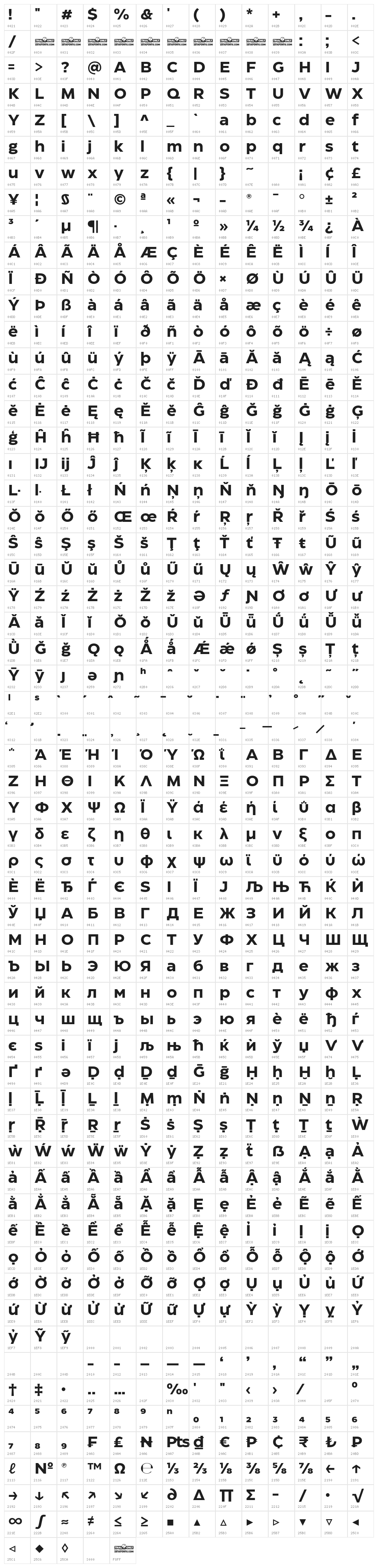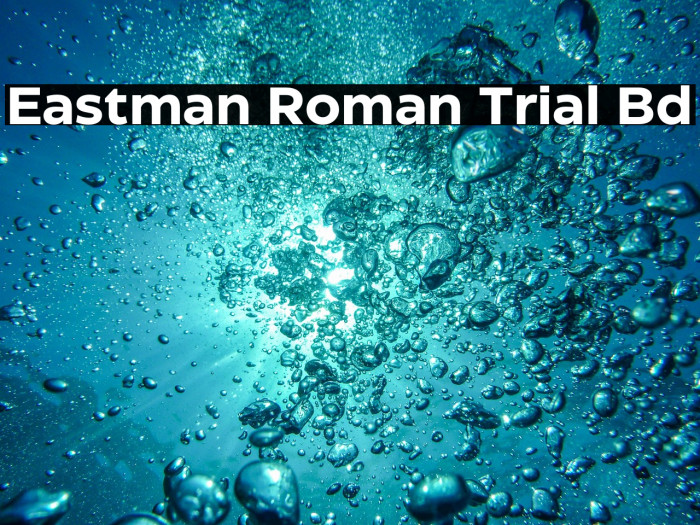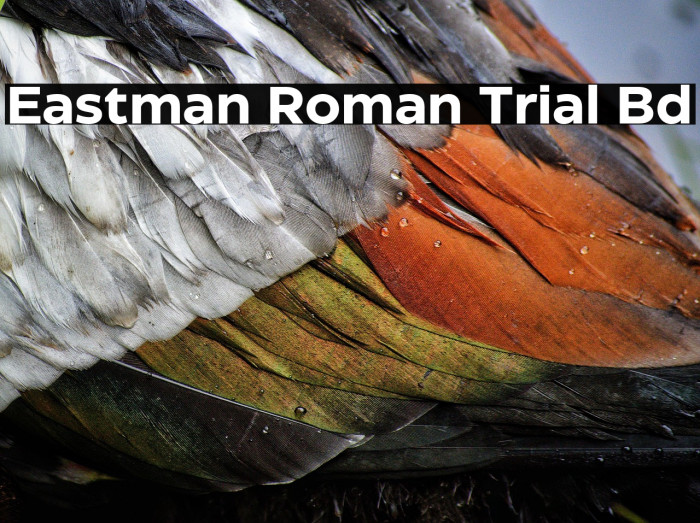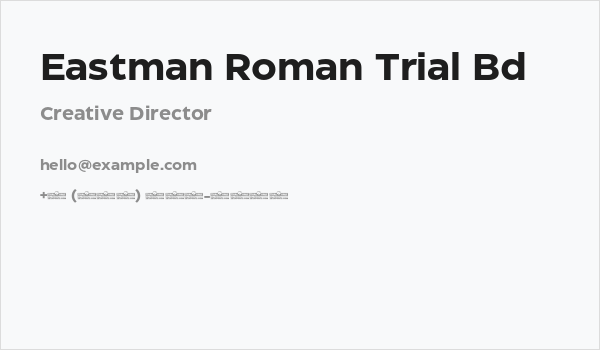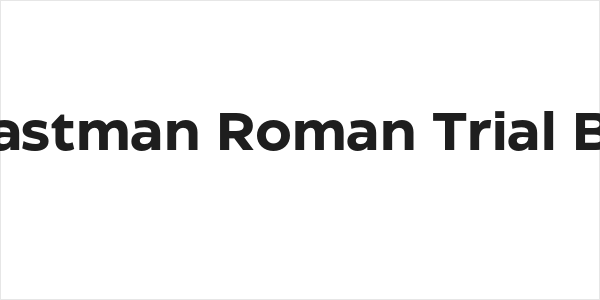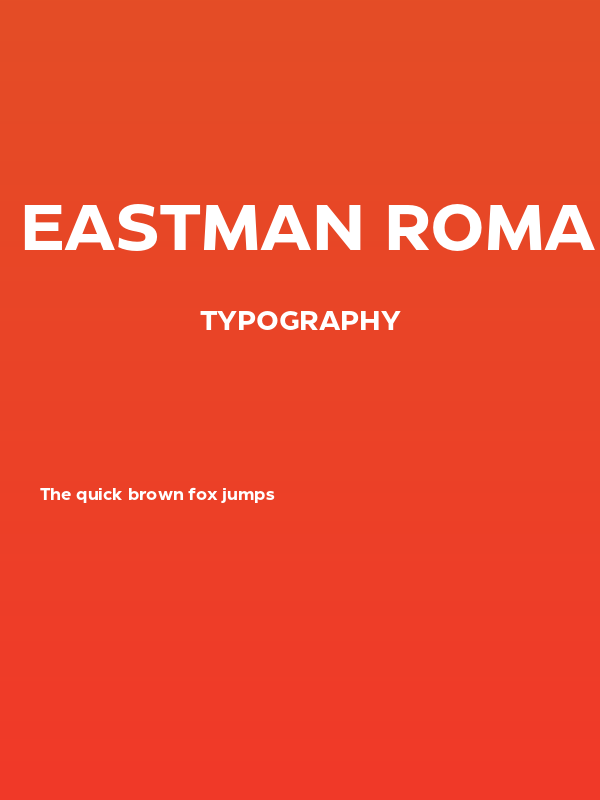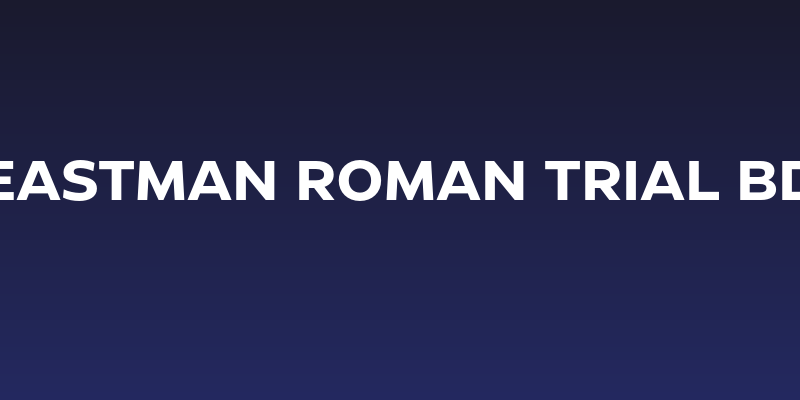
Eastman Roman Trial Bd Font
Eastman Roman Trial Bd Description
This font features a bold and modern sans-serif style with clean, geometric lines. The uppercase and lowercase letters are well-proportioned, offering a strong visual impact. The characters are evenly spaced, providing a balanced and harmonious appearance. The numerals and special characters maintain the same boldness and clarity, making them easily legible. This font is versatile, suitable for various design needs, from digital to print media. Its contemporary aesthetic makes it ideal for projects that require a strong and confident typeface.
Use CaseHeadlines, Logos, Branding
Proposed ProjectsIdeal for branding, advertising, headlines, and digital media projects.